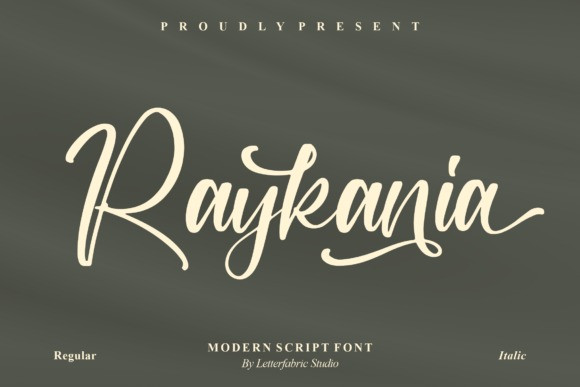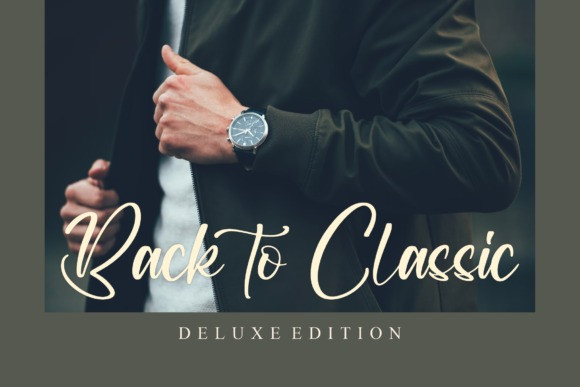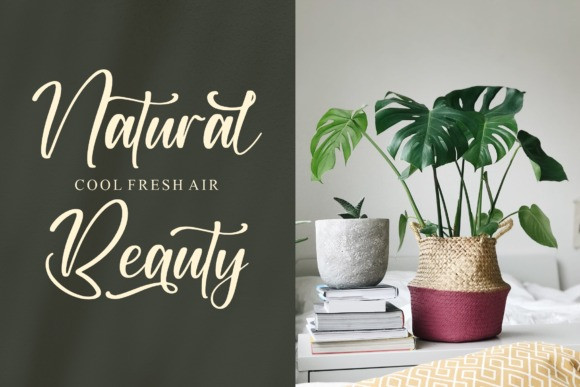
Raykania Font
Raykania is suitable for any projects such as logos, branding projects, homeware designs, product packaging, mugs, quotes, posters, shopping bags, t-shirts, book covers, name cards, invitation cards, greeting cards, label, photography, watermark, special events, and all your other lovely projects that need a beautiful script taste.